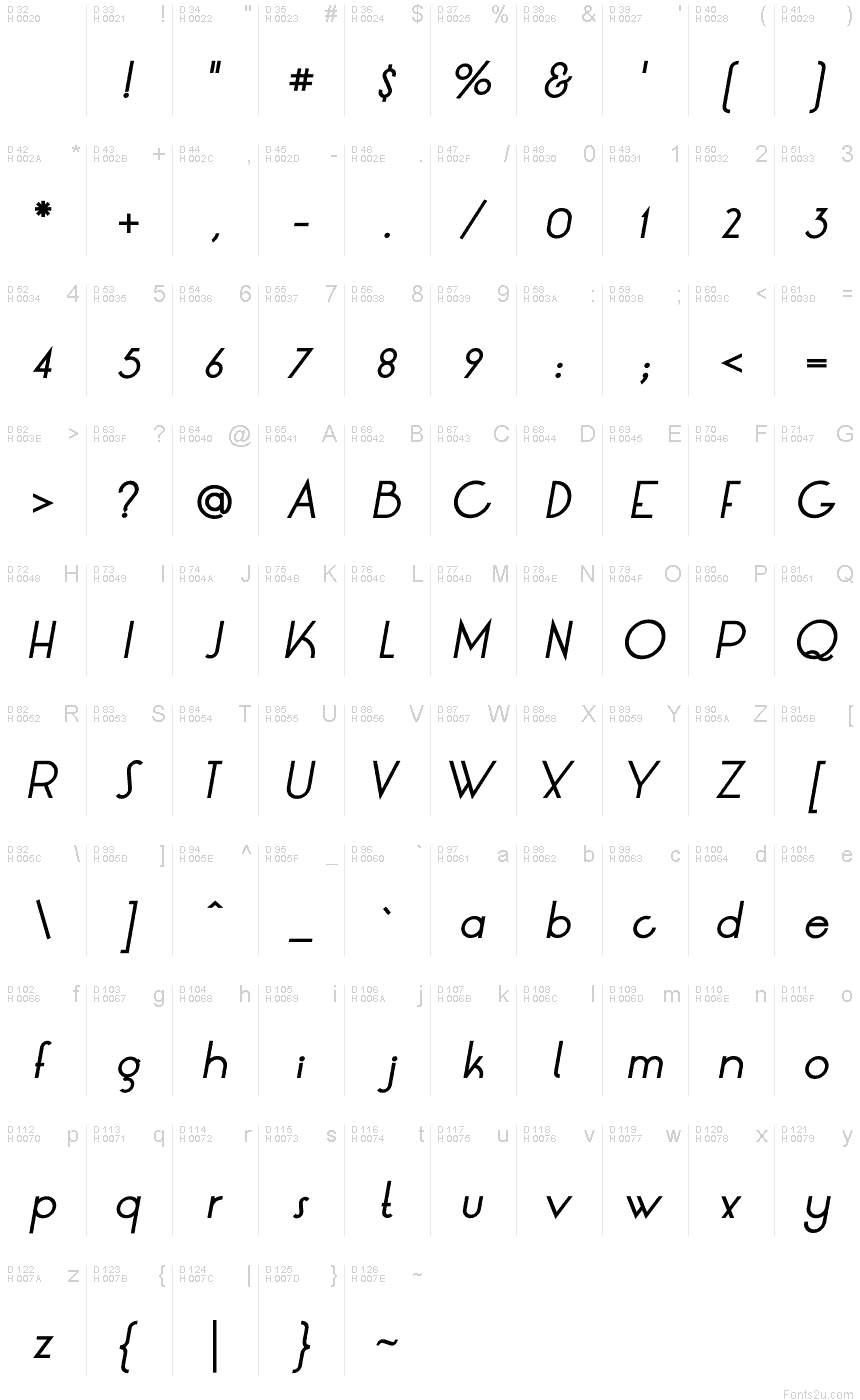
LT Oksana Medium Italic
Lauren Thompson
Original geometric design by Lauren Thompson, of Nymphont first created in 2008. The "deco" midlines and unconventional dotted letter positions as well as the almost vertical slant of the 's' give this font what has been described as a "retro" theme and add to the uniqueness of the typeface.
Version 3.00 release comes with updated kerning and the addition of several characters.